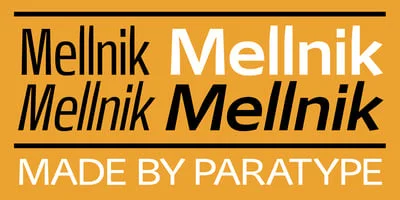
Mellnik Font
Mellnik Font is ideal for creative agency branding, modern lifestyle magazines, contemporary art galleries, innovative product packaging, trendy fashion communications, artistic event promotions, stylish web design projects, boutique retail branding, sophisticated marketing campaigns, and cutting-edge editorial layouts. This distinctive typeface creates refined contemporary atmosphere in both digital interfaces and premium print applications.
What makes Mellnik Font exciting is its perfect fusion of artistic sophistication with modern accessibility that creates uniquely engaging visual communication. The font features carefully crafted letterforms with subtle artistic flair and contemporary character details that reflect creative intelligence and design innovation. Its sophisticated design establishes an atmosphere of cultural awareness and aesthetic refinement that appeals to discerning audiences valuing both style and substance.
Mellnik Font family includes artistic variations: Thin, Light, Regular, Medium, Bold, and Display versions, each with creative alternates and stylistic character sets. Each variant maintains the font's artistic integrity while providing designers with sophisticated options for creating refined typography systems and contemporary communication materials.
This exceptional artistic typeface brings authentic creative sophistication to projects requiring contemporary presentation. Whether you're designing creative branding, lifestyle content, or artistic marketing materials, Mellnik Font delivers outstanding aesthetic appeal and modern sophistication. The font's refined proportions and artistic details ensure memorable visual impact across various creative applications.